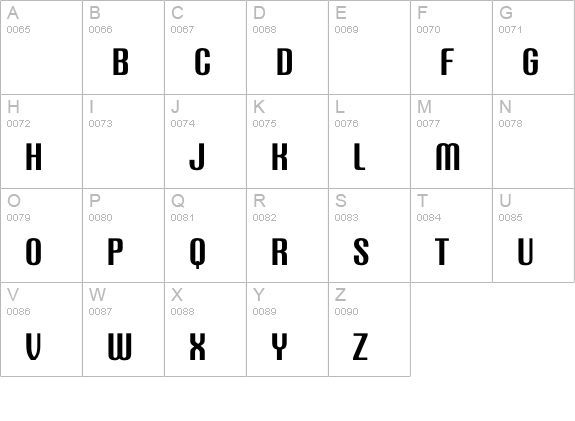
QuestMedium Font Details
Introducing QuestMedium, a versatile and dynamic font that is sure to capture your imagination. With its sleek and modern design, QuestMedium is the perfect choice for any project that demands attention and creativity. Whether you're designing a logo, crafting a website, or creating eye-catching print materials, this font will elevate your work to new heights. QuestMedium possesses a unique balance of elegance and boldness, making it suitable for a wide range of applications. Its carefully crafted letterforms exude confidence, while its fluid lines and subtle curves add a touch of sophistication. This font effortlessly blends professionalism with a hint of playfulness, allowing you to convey your message with style and clarity. One of the best things about QuestMedium is that it is free. Yes, you read that right! This remarkable font is freely available to download at FontsMarket.com. Now, you can enjoy the benefits of a high-quality font without breaking the bank. Whether you're a professional designer or a hobbyist, QuestMedium is the perfect addition to your font collection. Not only is QuestMedium visually appealing, but it is also highly functional. With a full range of weights and styles, you'll find the versatility you need to bring your creative vision to life. From bold headlines to elegant body text, this font adapts effortlessly to any typographic need. Its excellent legibility ensures that your message is always clear and impactful, no matter the size or context. Don't miss out on the opportunity to enhance your designs with QuestMedium. Download this exceptional font for free at FontsMarket.com and unlock a world of possibilities. Elevate your projects to new levels of professionalism and creativity with QuestMedium, the font that combines style, functionality, and affordability in one perfect package.